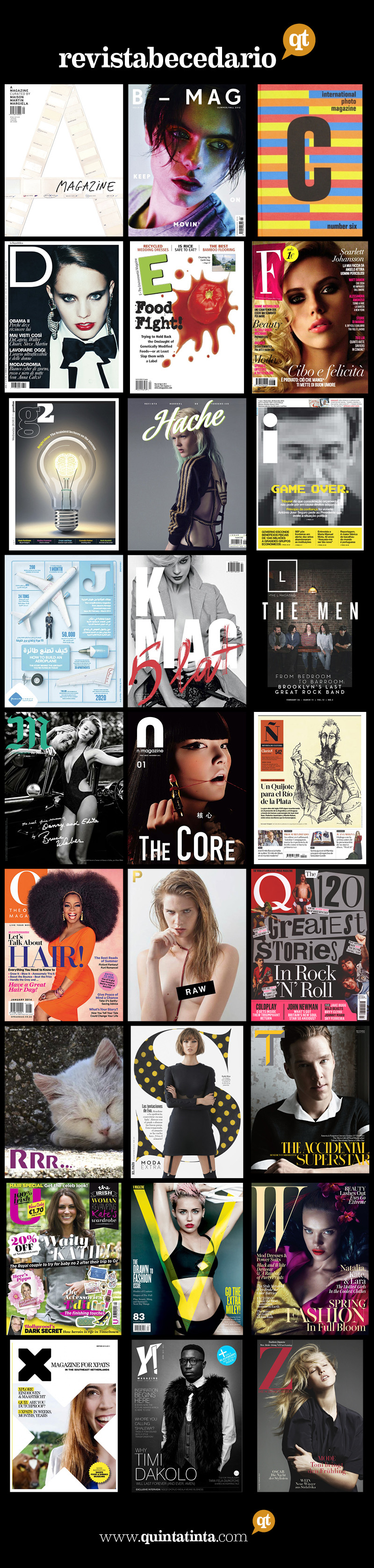
Quinta Tinta explores A to Z magazine titles
Big and lovely characters create a series of magazine titles from A to Z. Letters as forms are always an appeal to the designer's interest, so Quinta Tinta enlightened us with this beautiful compilation.